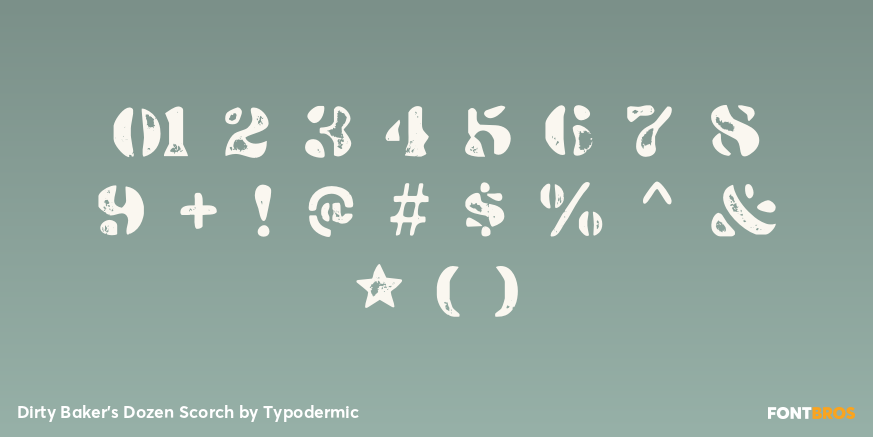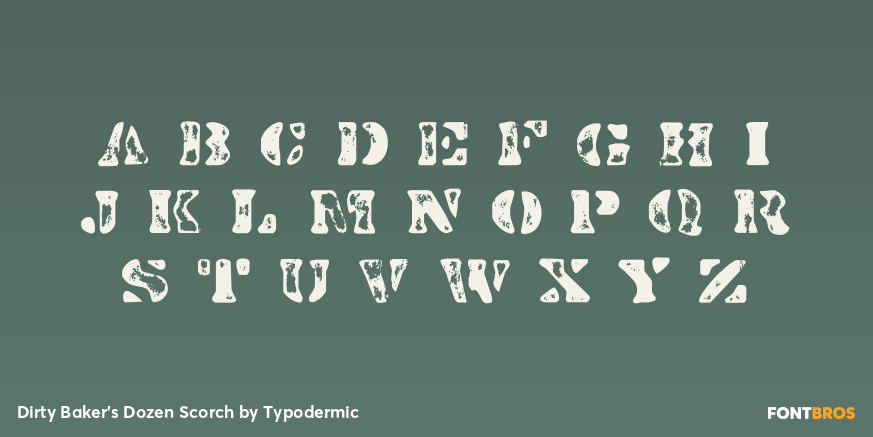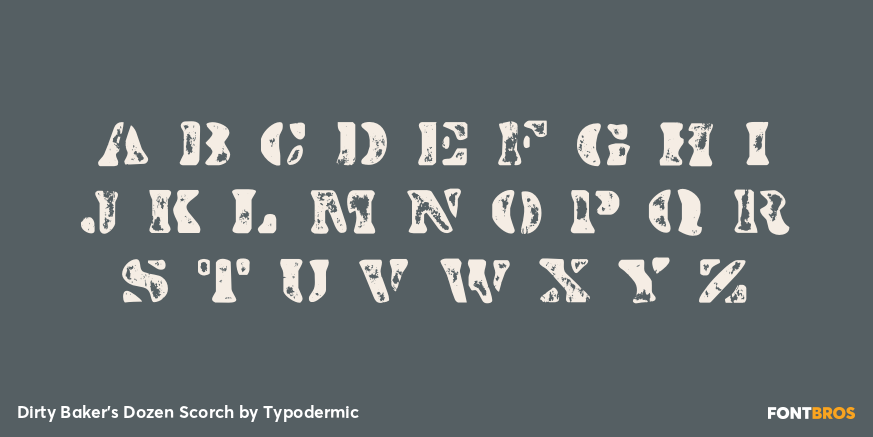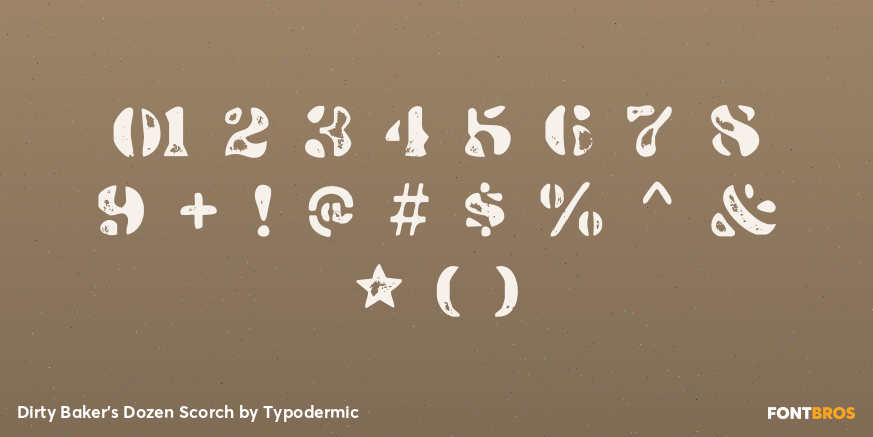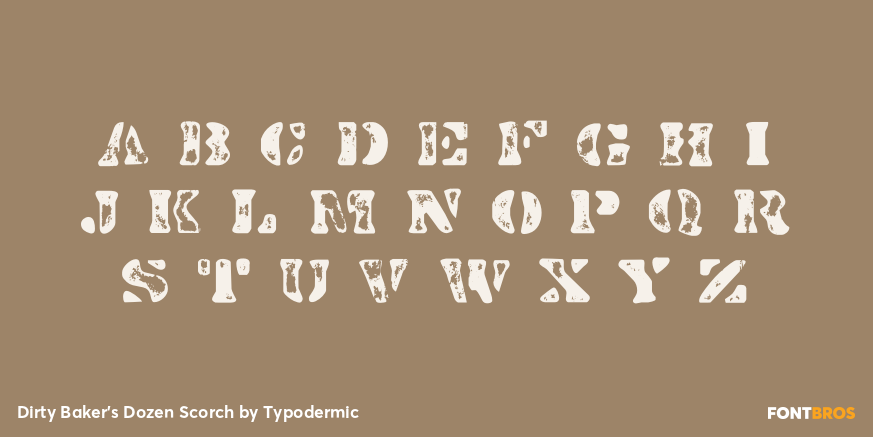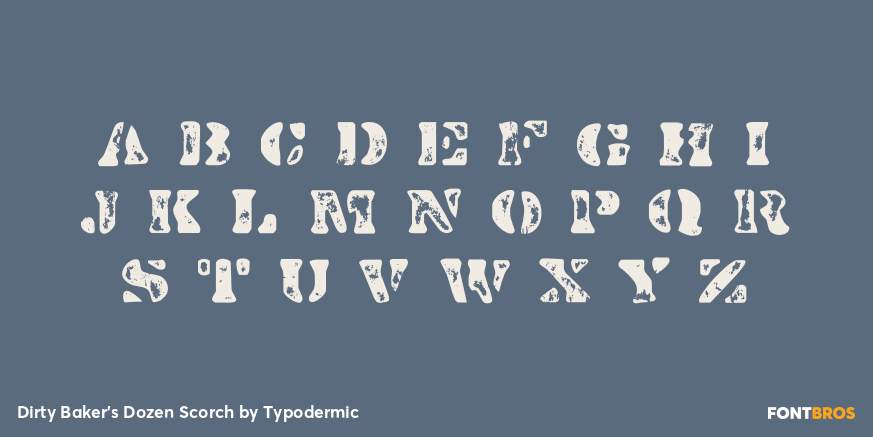
Dirty Baker's Dozen Scorch
Buy NowDirty Baker’s Dozen Scorch pushes the family’s stencil skeleton into its most deteriorated state. Broken surfaces and irregular gaps suggest heat damage, abrasion, corrosion, or years of hard use, while alternate letter combinations help repeated texture avoid an obvious stamped pattern.
Use Scorch for extraction-shooter factions, industrial-horror titles, battered bunker signs, damaged equipment IDs, rally-raid graphics, metal merchandise, and campaign imagery built around aftermath or endurance. Pair it with Regular for the same identity before the damage, or with Spraypaint when the name needs to look reapplied by hand.